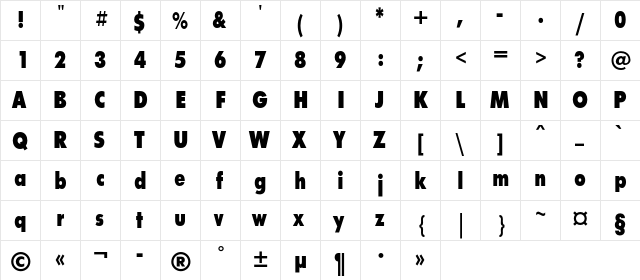
FuturisXCondC Bold Font Preview
Design Context for FuturisXCondC Typeface
FuturisXCondC has a distinctly futuristic character, with geometric precision and clean angles that feel at home in technology, gaming, and sci-fi contexts. Its bold stroke weight gives it real presence on the page. Its narrow stance lets it pack a punch even in space-constrained designs.
Pro Tip: Use FuturisXCondC in combination with a neutral sans for body text. Let it define the brand voice in headlines while keeping reading comfortable elsewhere.